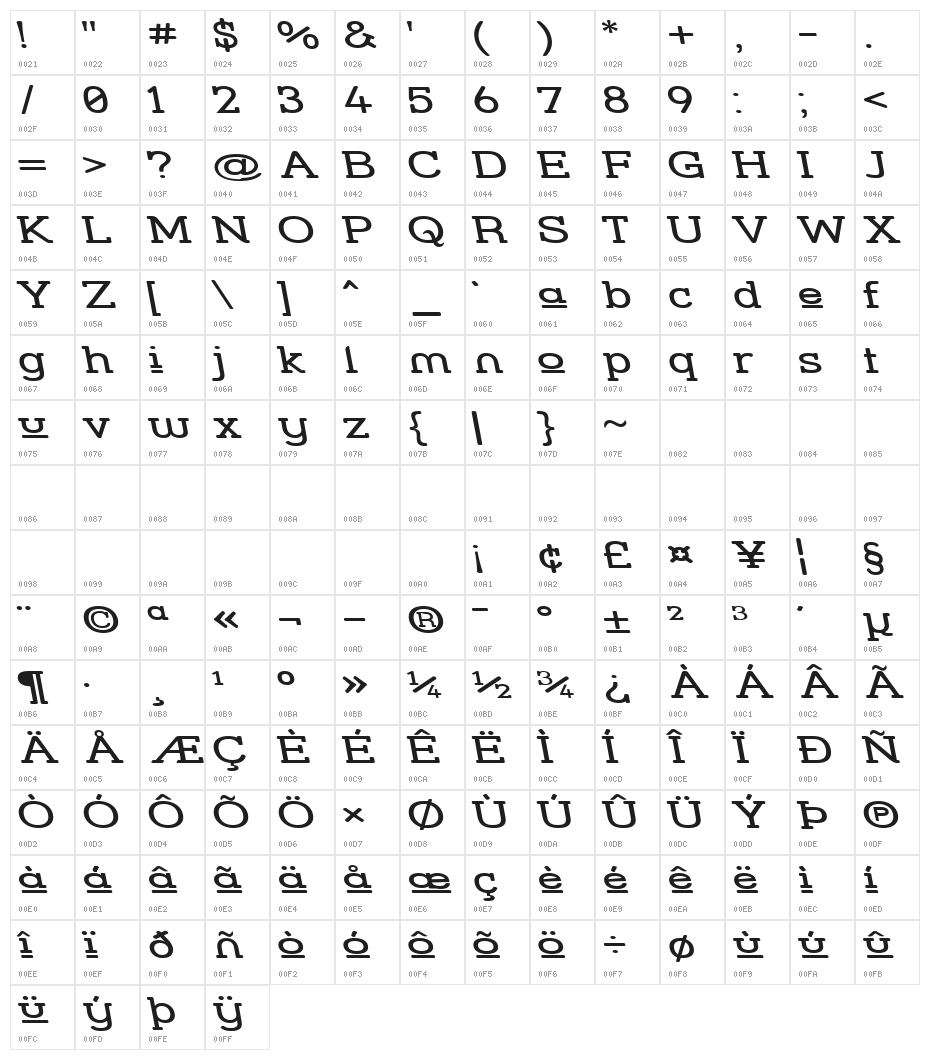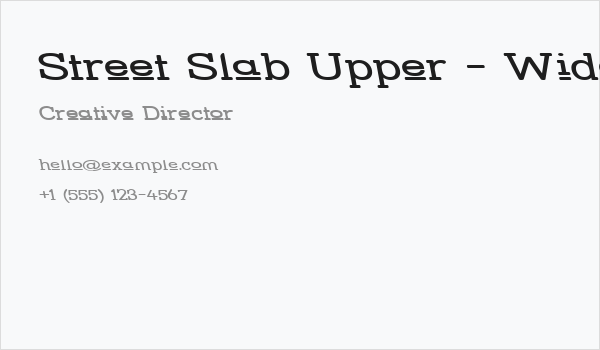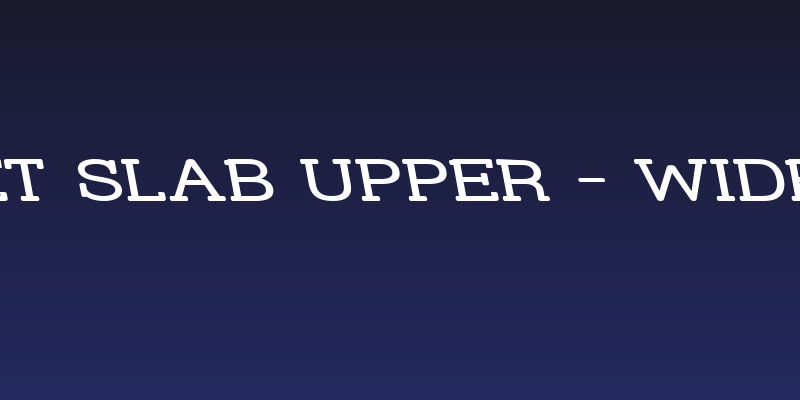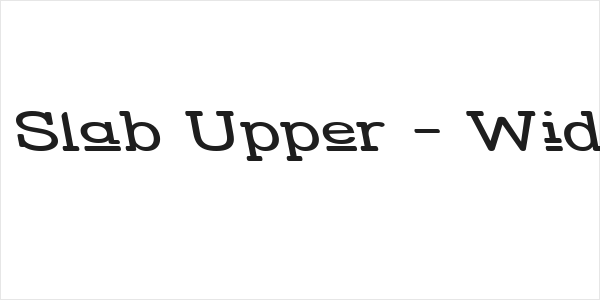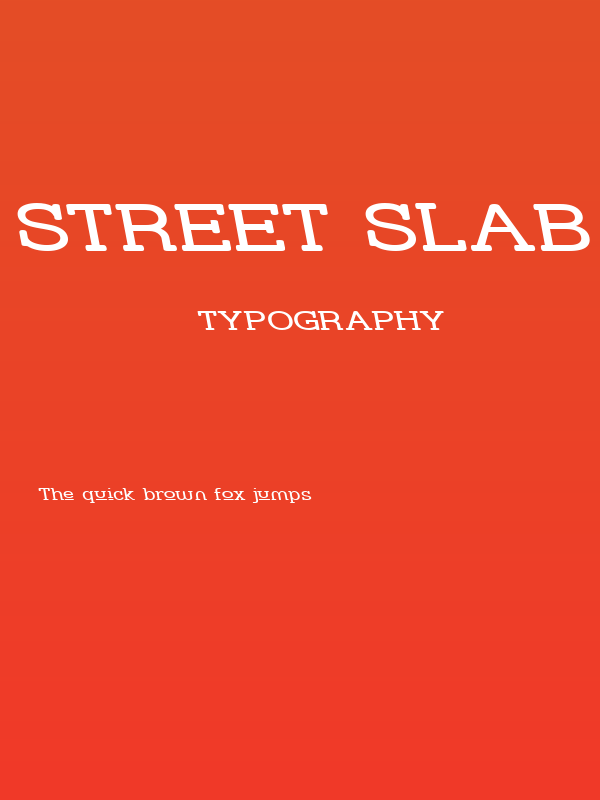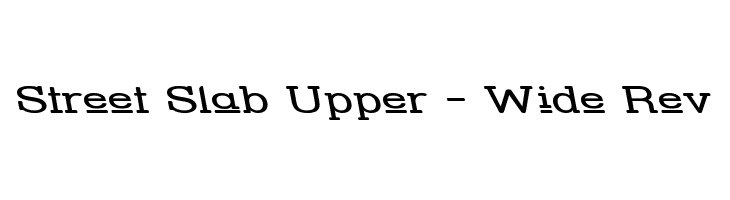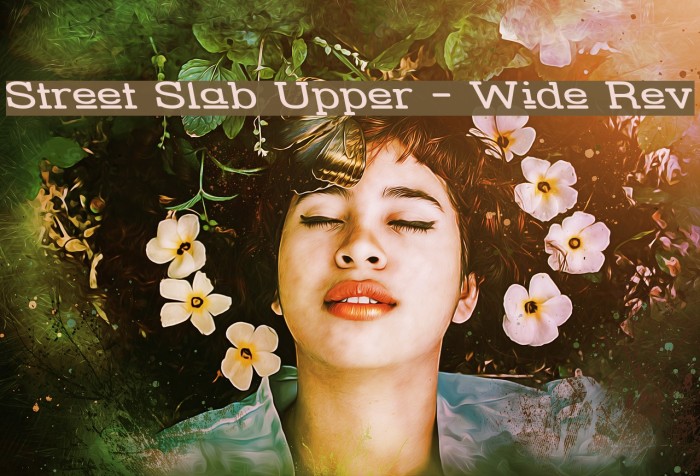
Street Slab Upper - Wide Rev Font
Street Slab Upper - Wide Rev Description
This font features a bold and robust slab serif style, characterized by thick, block-like serifs that provide a strong, impactful appearance. The uppercase letters are wide and evenly spaced, giving a sense of stability and strength. The lowercase letters maintain the same boldness, with a slightly more rounded appearance that adds a touch of approachability. Numbers are consistent with the overall style, ensuring readability and uniformity. Special characters are designed to match the bold and structured aesthetic, making them easily recognizable and functional.
| Proposed Projects | Ideal for headlines, posters, branding, and any project requiring a strong, impactful typeface. |